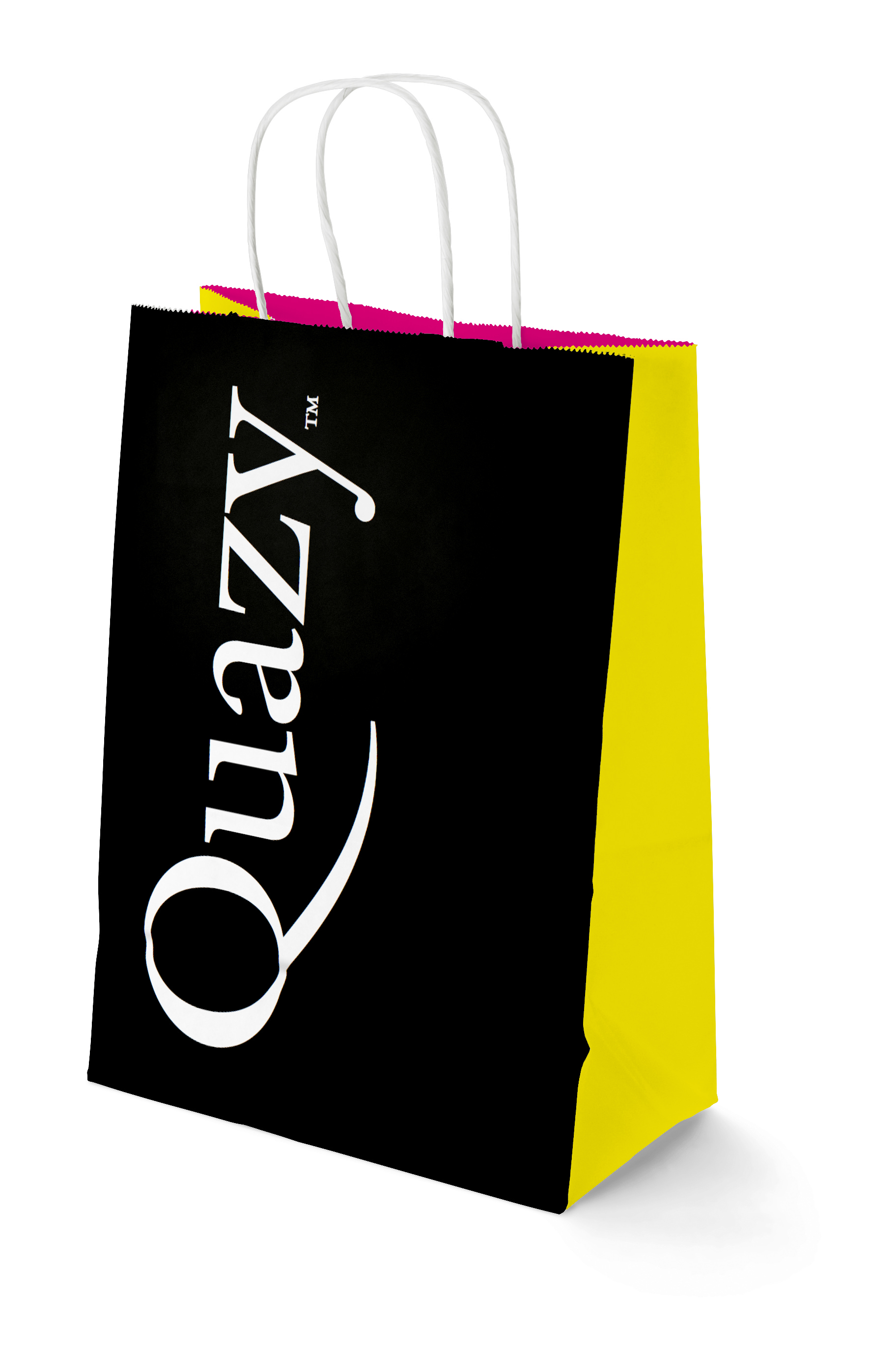
Logo Design Studies
Romaine Logo Design Studies
Aad van Dommelen wanted to show the true beauty of Romaine at work, so he created some fictional logo designs to show Romaine flexing her typographic muscles.
Romaine Logo Design Studies
Romaine offers a wide range of uses, illustrated here with a fictional logo design.
Romaine Logo Design Studies